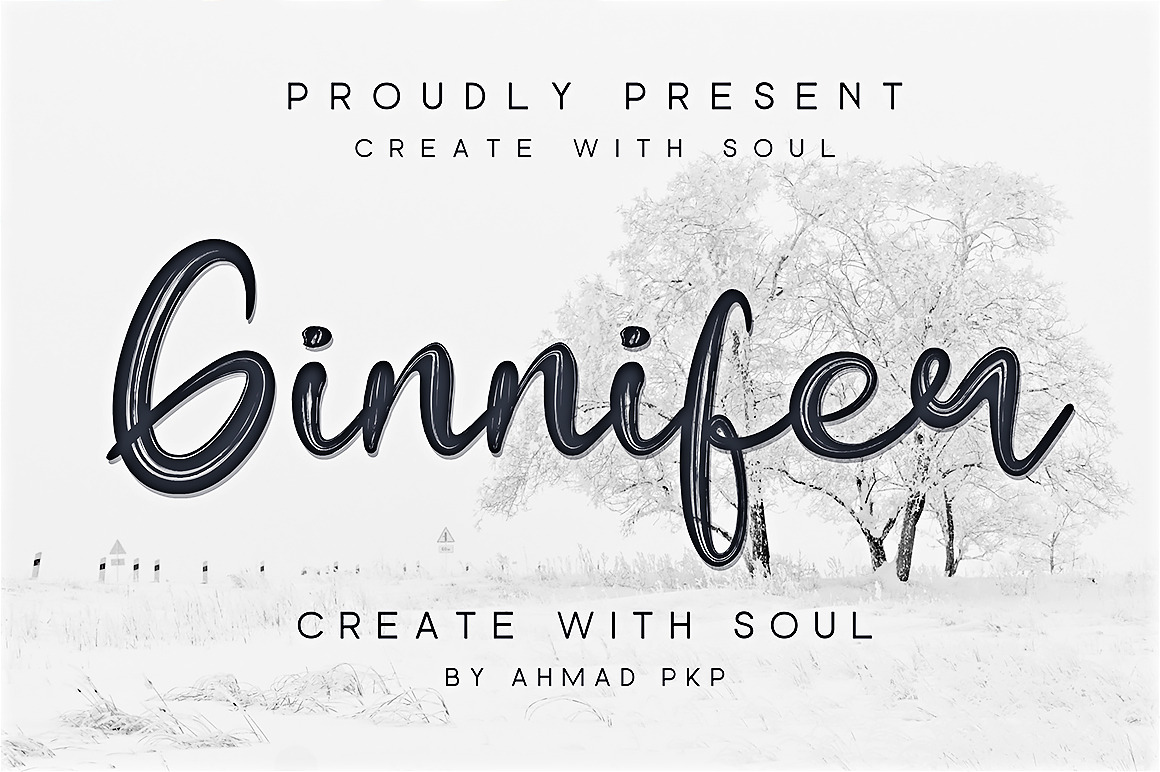
Ginnifer Font - Modern Script
Ginnifer is an expressive handwritten brush font. With thick, rough brush strokes, a fun character with a bit of binder and alternatives. To give you extra creative work. This Ginnifer font is great for logo designs, social media, Movie Titles, Book Titles, short text even long text fonts and is great for your secondary text fonts with sans or serif. Create stunning masterpieces with the Ginnifer font.